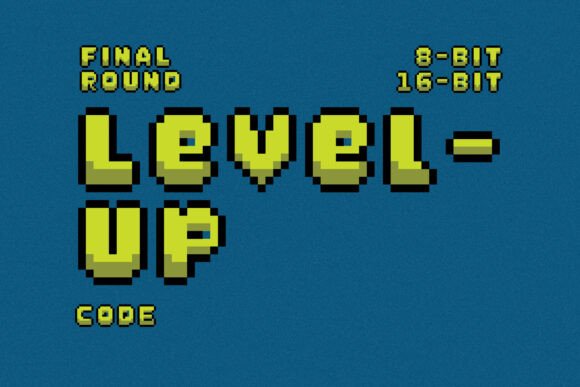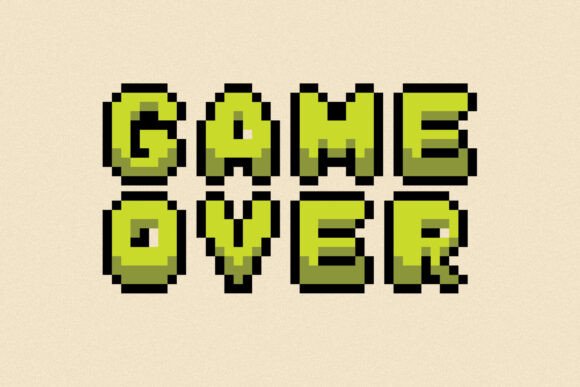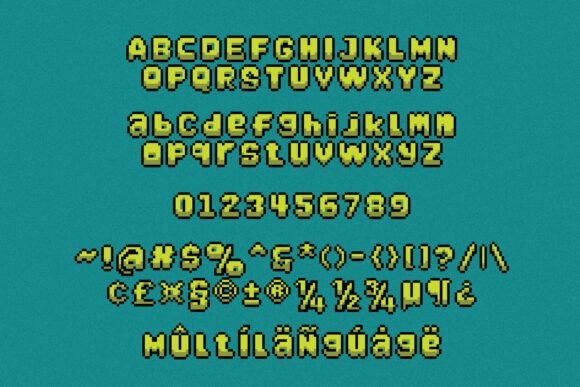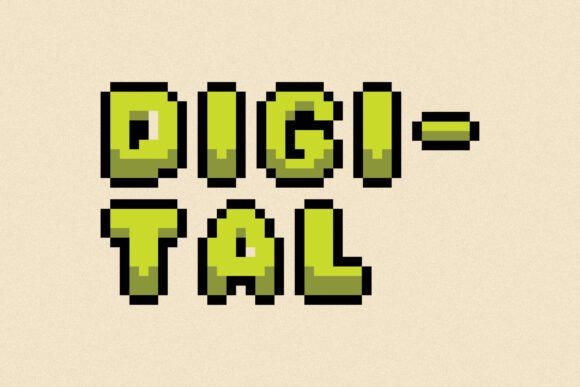
Retro Revival: The Timeless Charm of Analog Pixel Font
Do you remember the thrill of booting up your old Nintendo 64 or playing classic arcade games? The pixelated graphics and blocky fonts instantly transport us back to a bygone era of gaming and digital innovation. For designers and creatives, capturing that nostalgic essence is key to creating truly memorable experiences.
That’s where Analog Pixel Font comes in – a retro-style pixel font that embodies the classic look and feel of vintage video games. With its blocky, digital aesthetic, this font is perfect for digital-themed designs, old-school video games, and retro posters that need a touch of nostalgia.
As a designer, Analog Pixel Font is an invaluable tool in your creative arsenal. Its ease of readability and versatility make it a go-to choice for projects that require a vintage vibe. Whether you’re designing a retro-themed game, a nostalgic poster, or a digital display, Analog Pixel Font is the perfect way to add a touch of retro charm to your work.
- Unique Characteristics: Analog Pixel Font features a distinctive, hand-crafted aesthetic with subtle texture and imperfections, giving it a unique and human touch that sets it apart from other digital fonts.
- Character Set: The font includes a comprehensive character set, including Latin, Cyrillic, and Greek alphabets, as well as a range of punctuation marks and special characters.
- Style Variations: Analog Pixel Font is available in multiple styles, including regular, bold, italic, and bold italic, allowing designers to experiment with different looks and feels.
Analog Pixel Font Review
I’ve had the chance to play around with the Analog Pixel Font, and here are my thoughts.
- The font’s distressed, pixelated aesthetic is incredibly on-trend and visually appealing.
- It’s highly customizable, with a wide range of options for adjusting size, color, and style.
- The font is relatively easy to read, even at smaller sizes, which is a testament to its well-designed pixel grid.
- It’s great for use in retro-style projects, such as video games, arcade-style websites, or pixel art.
- The font’s pixelated nature can make it difficult to read in certain situations, such as at very small sizes or in low-light environments.
- The font’s distressed aesthetic can also make it difficult to use for body text or large blocks of text.
- Some users may find the font’s pixelated style to be too gimmicky or overused.
The Analog Pixel Font is a solid choice for projects that require a retro, pixelated aesthetic. While it has some limitations, its customization options and visually appealing design make it a great addition to any designer’s toolkit.
For the most out of Analog Pixel Font, use it for retro-inspired designs, video game graphics, or pixel art projects. To achieve a more authentic pixel look, use a low resolution (72 dpi) and a small font size (8-12 points).